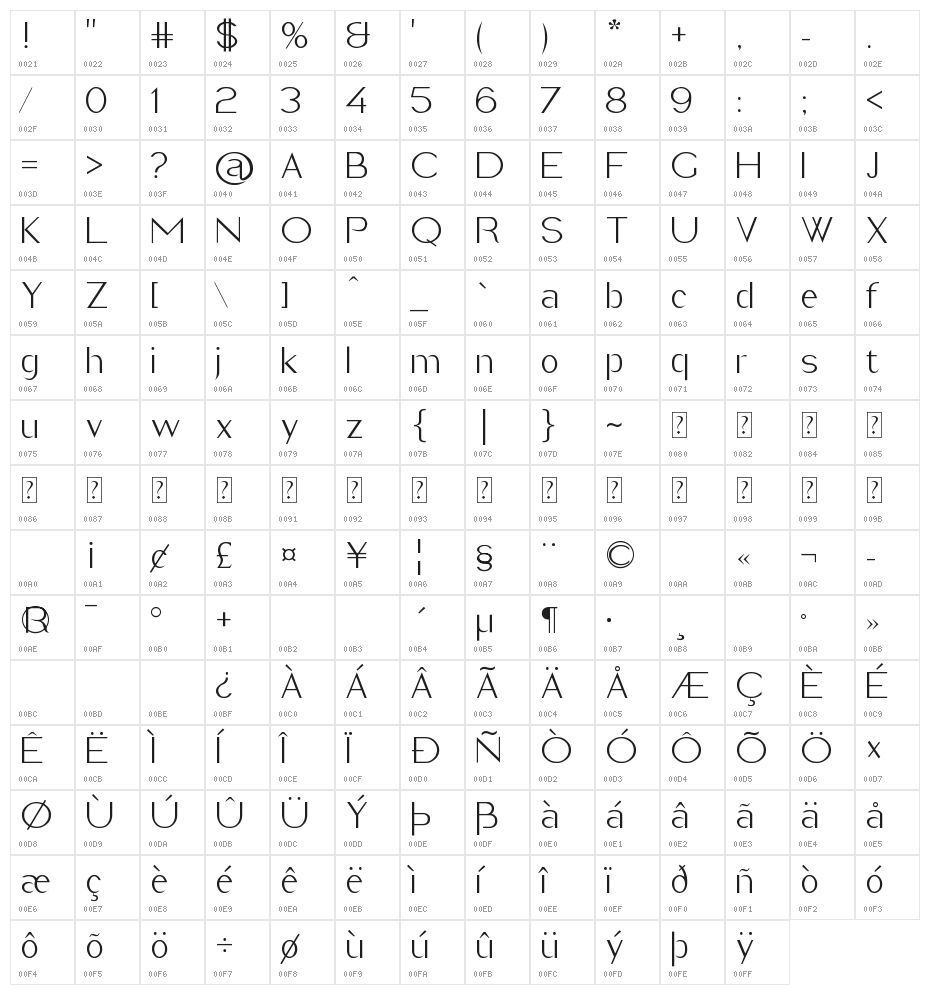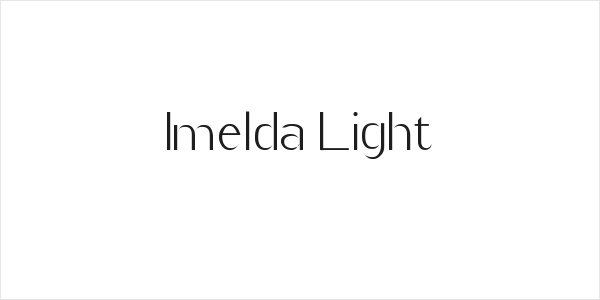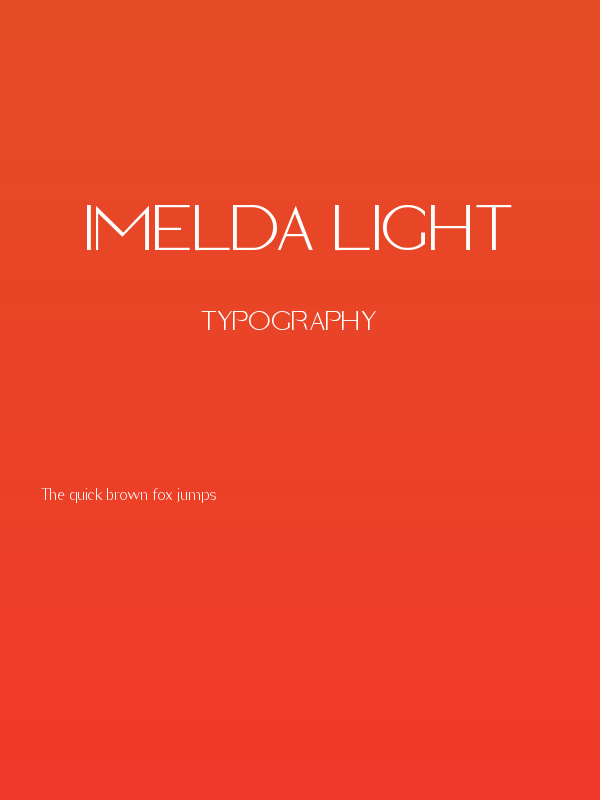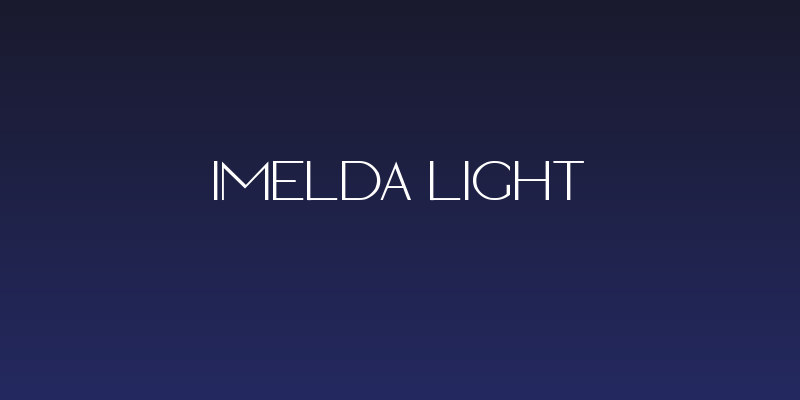
Imelda Light Font
Imelda Light Description
This font presents a sleek and modern aesthetic with clean lines and a minimalist design. The characters are evenly spaced, providing a balanced and harmonious appearance. The uppercase letters are tall and elegant, while the lowercase letters maintain a consistent flow with subtle curves. The numerals are straightforward and align well with the overall style. Special characters are distinct and integrate seamlessly with the rest of the set. This font is versatile, suitable for both digital and print media, offering a professional and contemporary look.